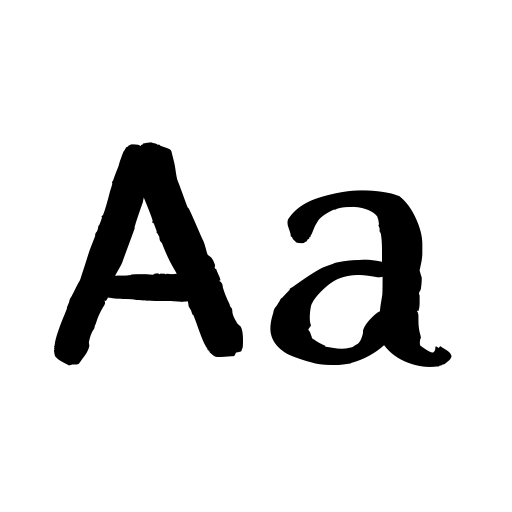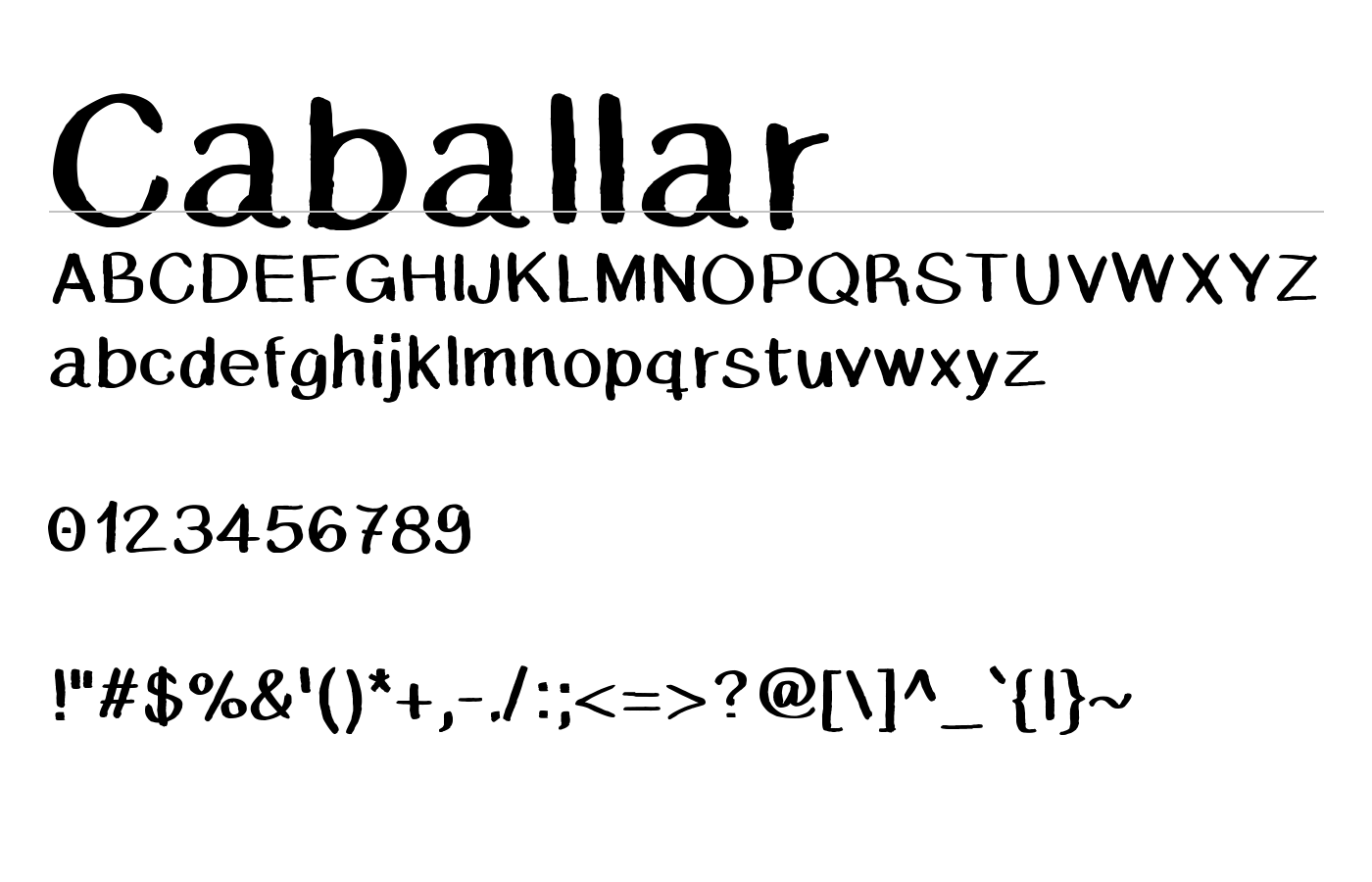
Caballar is a playful serif font with a hand-drawn feel, featuring irregular strokes and a slightly rough texture that adds personality and warmth. Its moderate contrast and quirky letter shapes make it ideal for creative projects, informal branding, and editorial uses where a friendly, approachable tone is desired. This font works well for headlines, packaging, and designs that benefit from a unique, handcrafted touch.
Caballar Font
About Caballar Font